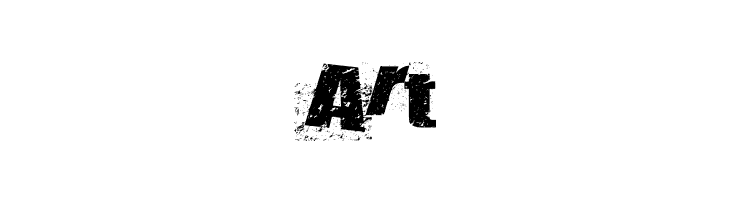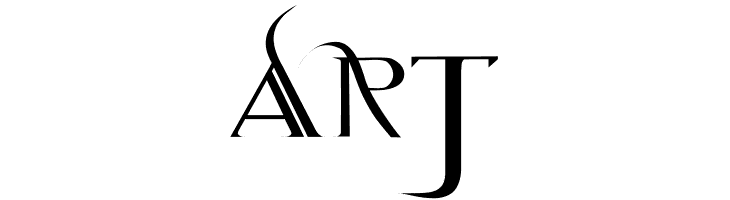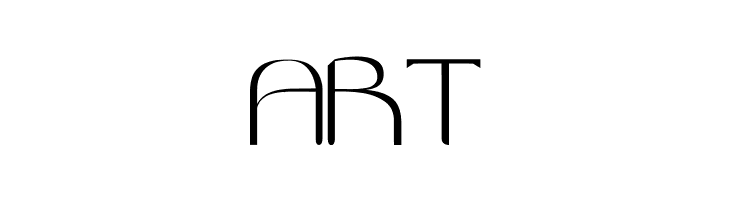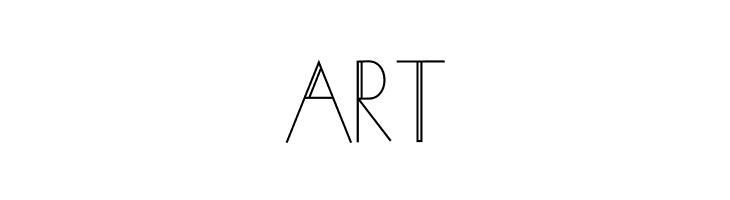
A bold, distressed font with a grunge texture and rugged appearance.
A bold, textured font with a hand-painted, vintage style.
A thin, elegant font with elongated, narrow characters and a refined style.
An artistic and decorative font with elaborate, angular designs.
A futuristic and sleek font with thin, elongated letterforms and geometric shapes.
A modern, decorative font with a striped, textured design.
A modern, geometric font with an Art Deco influence, featuring thin, elongated letterforms.
A modern, geometric font with angular, abstract letterforms.
A geometric, minimalist font with thin lines and sharp angles, ideal for modern designs.